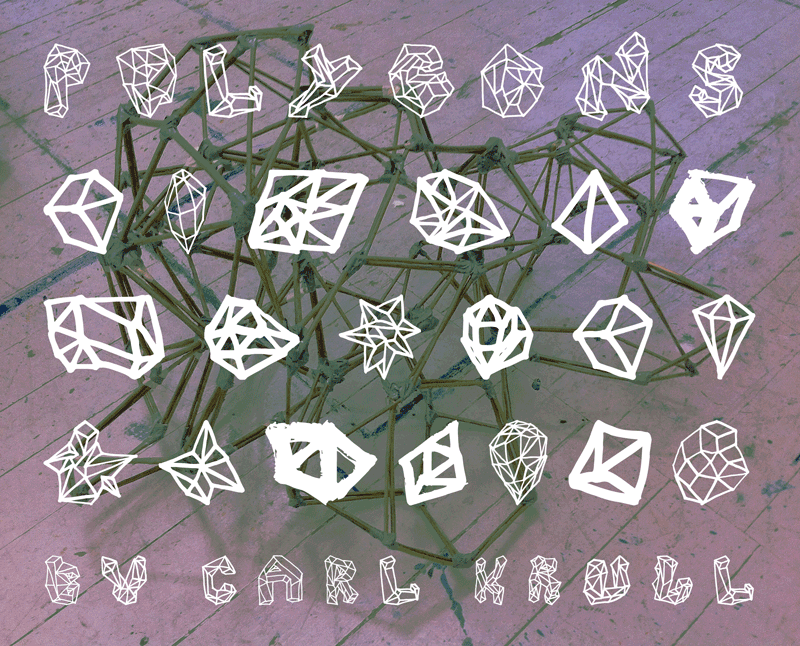
Font name: | Polygons |
Author: | Carl Krull |
Note by Carl Krull | |
Polygons is a multi vertices crystalline typeface, inspired from structures found in minerals and crystals and constructed with loose discipline. The font is free for personal use only. If used for commercial use, please contact me at mail@carlkrull.dk |